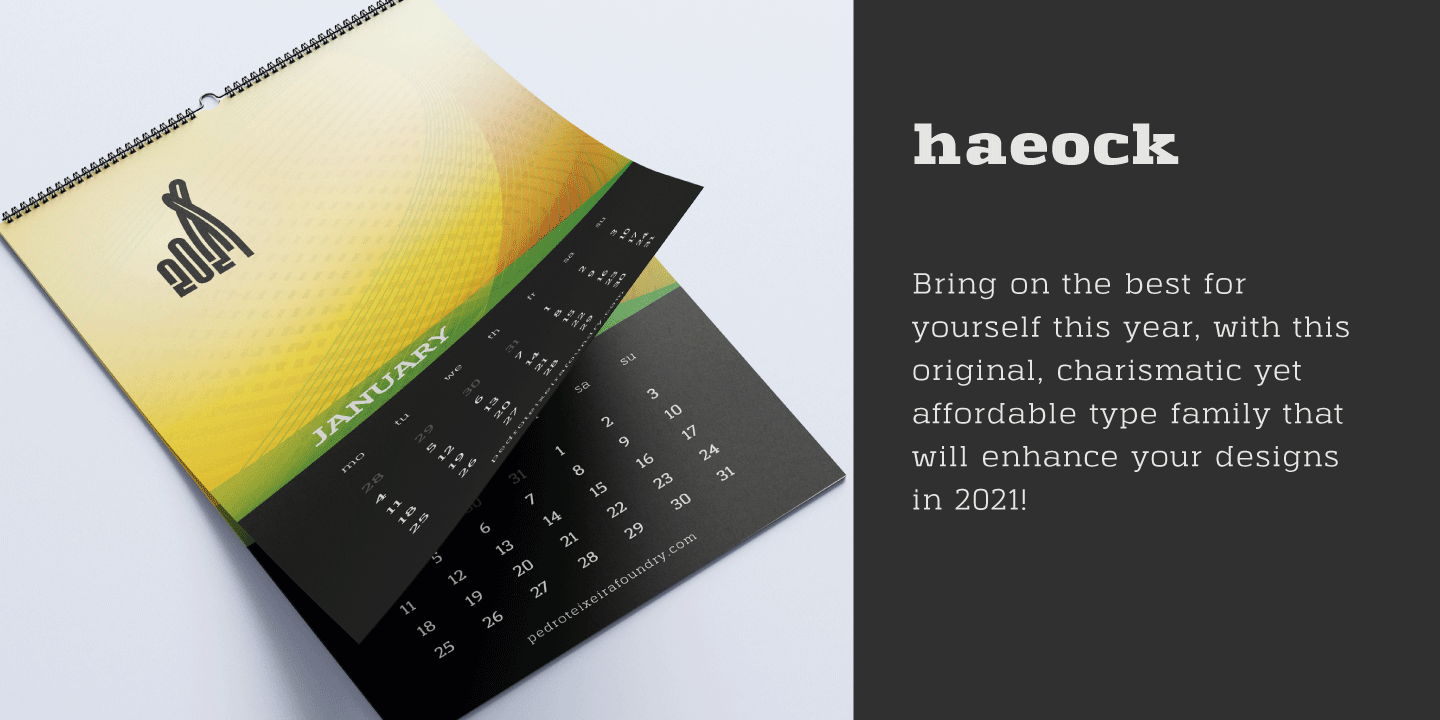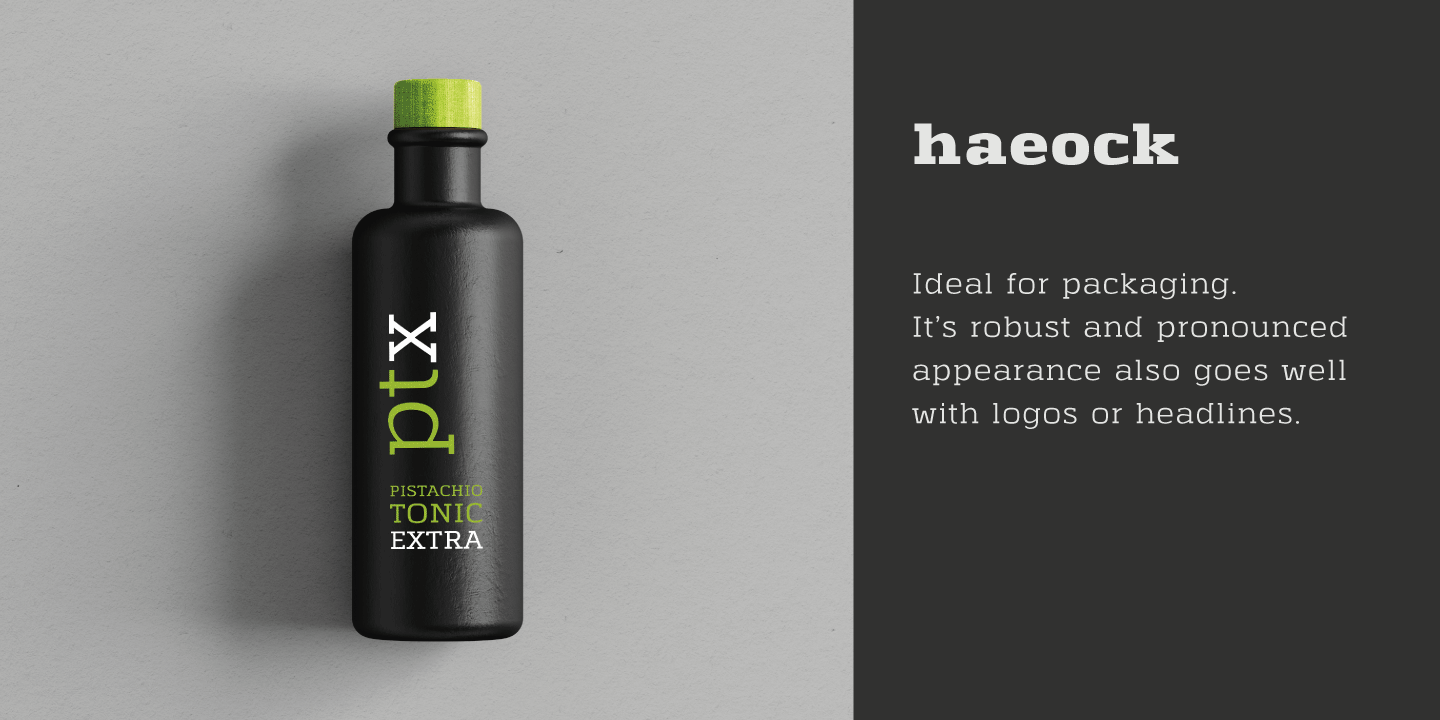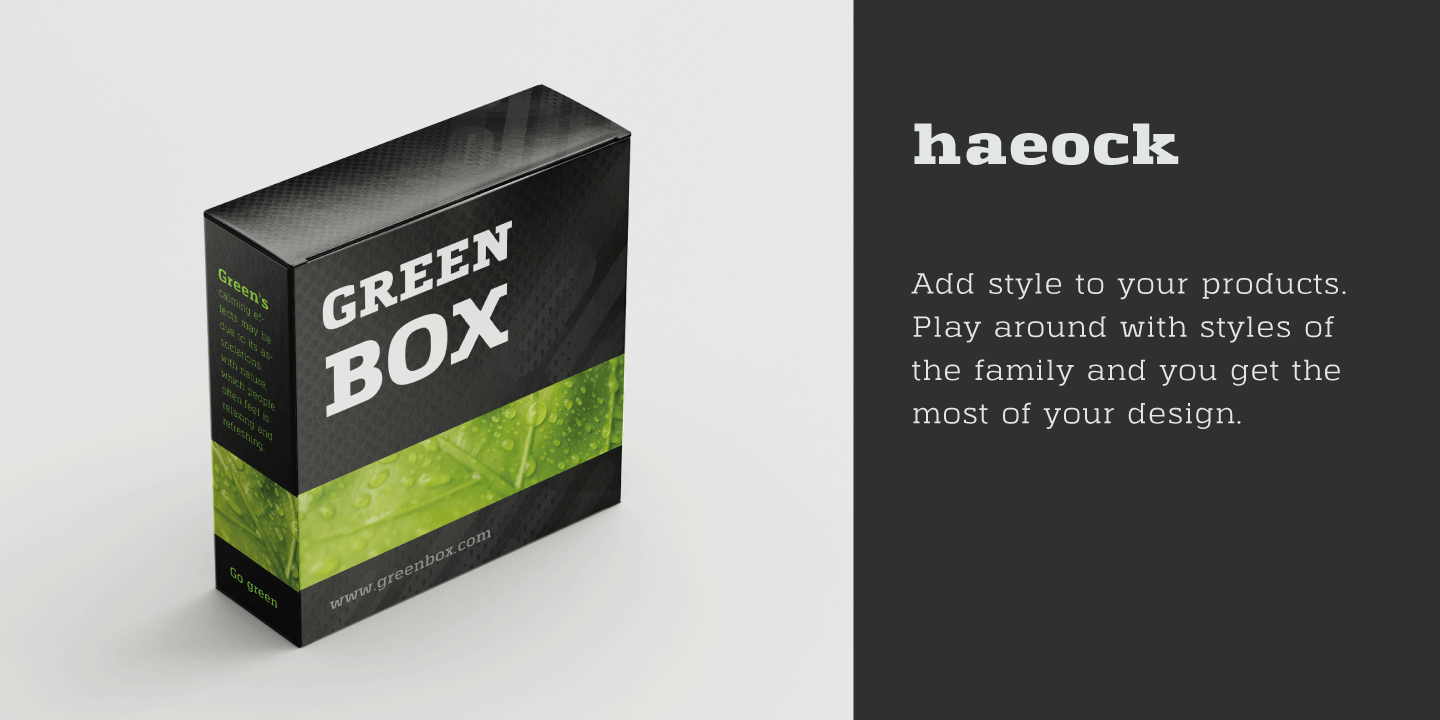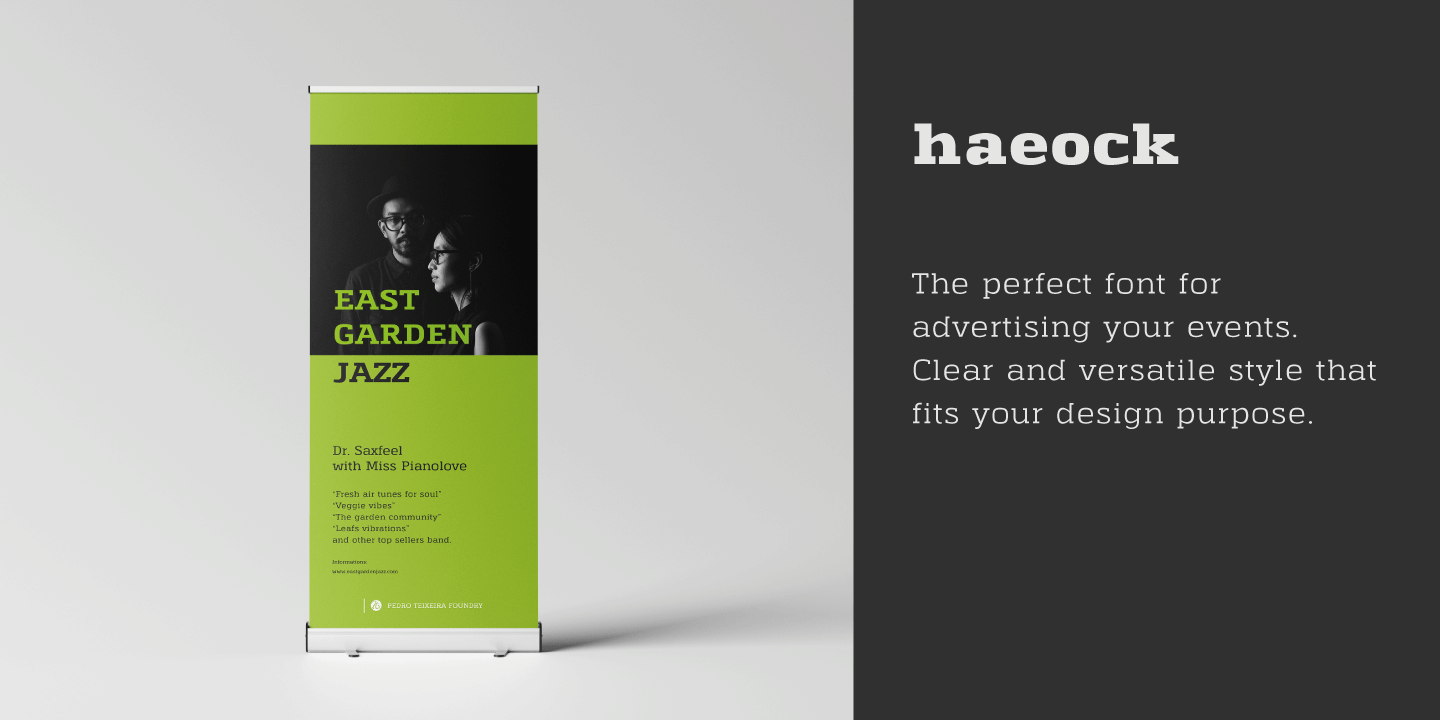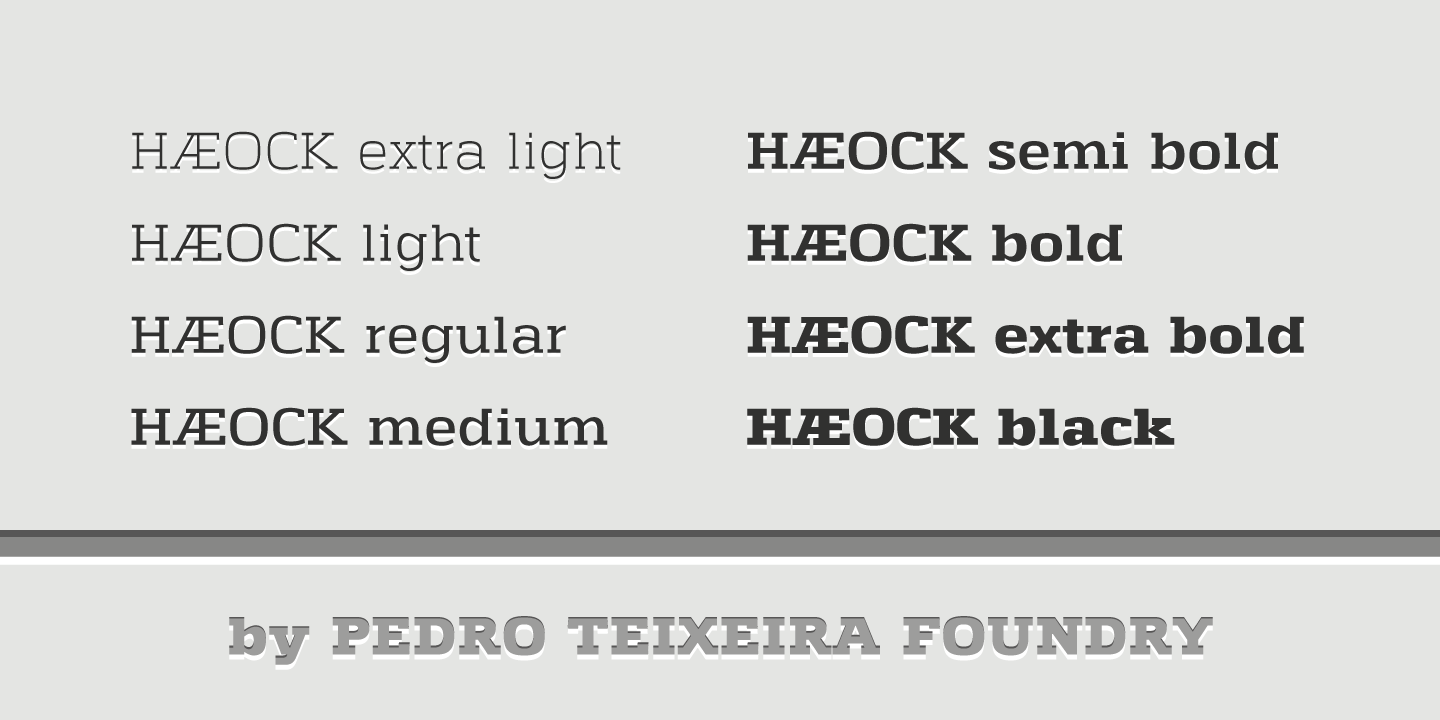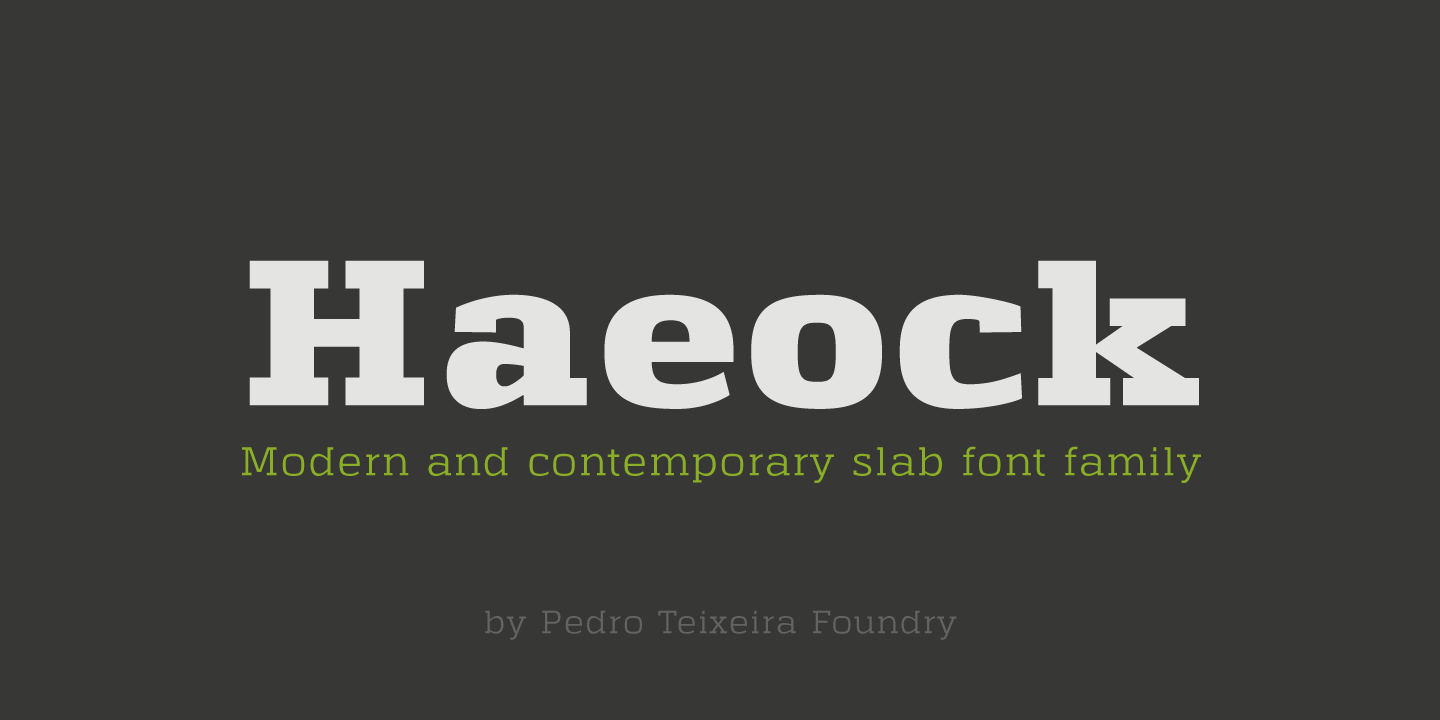
Haeock
About Haeock
Haeock is very readable, an beautiful slab serif designed by Pedro Alexandre Teixeira. This font family works very well on packagings, branding and editorial design, tiles, books, magazines, corporate design. It has 605 glyphs each style.